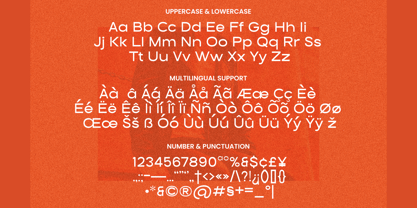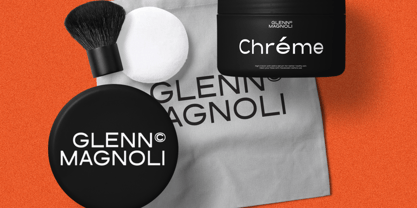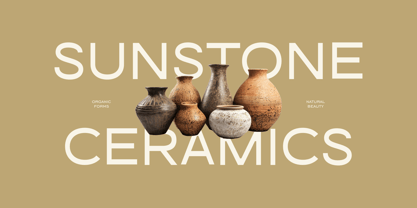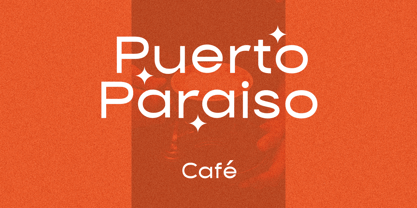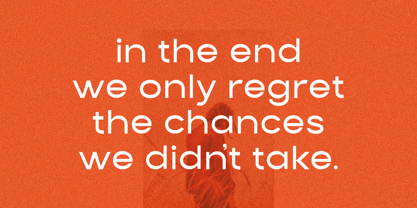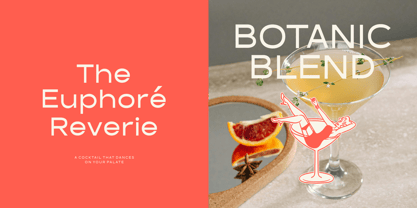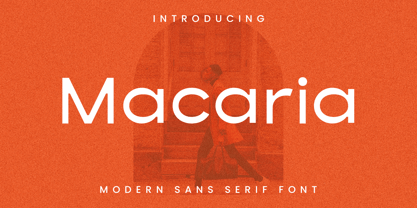
Macaria
Die Schriftfamilie Macaria wurde von Aulia Savira Putri entworfen und von Imoodev veröffentlicht. Macaria enthält 1 Stile. Mehr über diese Familie
Macaria is a modern geometric sans serif typeface with a clean, minimalist structure and refined proportions. The letterforms feature soft rounded corners and monoline strokes.
Macaria is a bold and architectural font, delivering strong visual impact for logos, headlines, and editorial layouts. This font suitable for international branding projects. Its versatile design works beautifully across fashion, beauty, lifestyle, hospitality, packaging, social media, and luxury branding applications.